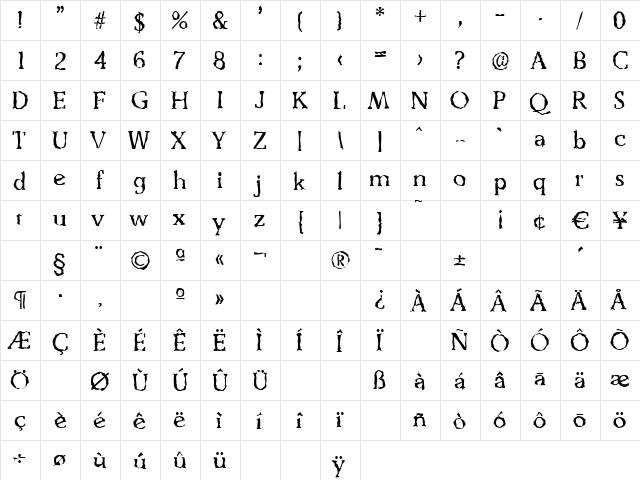
BenjaminBeckerRandom Regular Font Preview
BenjaminBeckerRandom Regular
Design Context for BenjaminBeckerRandom Typeface
BenjaminBeckerRandom takes a measured approach to typography — its balanced proportions and neutral character make it a reliable workhorse for both digital and print work.